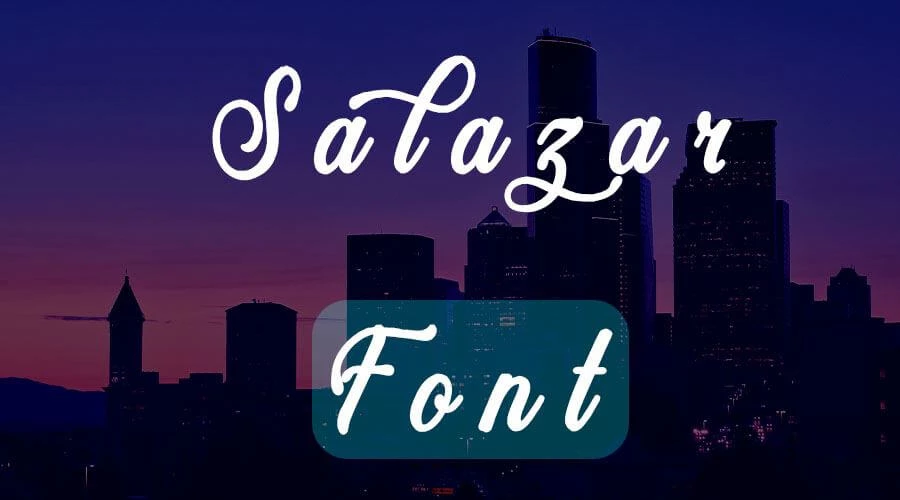
Salazar is a Hand-Drawn Script Font inspired by the old era vintage brand and packaging. Konstantine Studio published this font in September 2018. The appearance of this font is Calligraphic. In some cases, it looks like a cursive font. One can mention it as semi calligraphy too. Ebbing Swash Font is similar font to Salazar. Konstantine Studio followed the traditional hand drawing style to design Salazar Font. So this is a Semi-Calligraphy font. Whatever it’s appearance Salazar has a user-friendly typeface.
| Name | Salazar Font |
| Style | Hand-Drawn Script, Caligraphy |
| Author | Konstantine Studio |
Ans: Salazar is a handwriting typeface font with semi-light weights font.